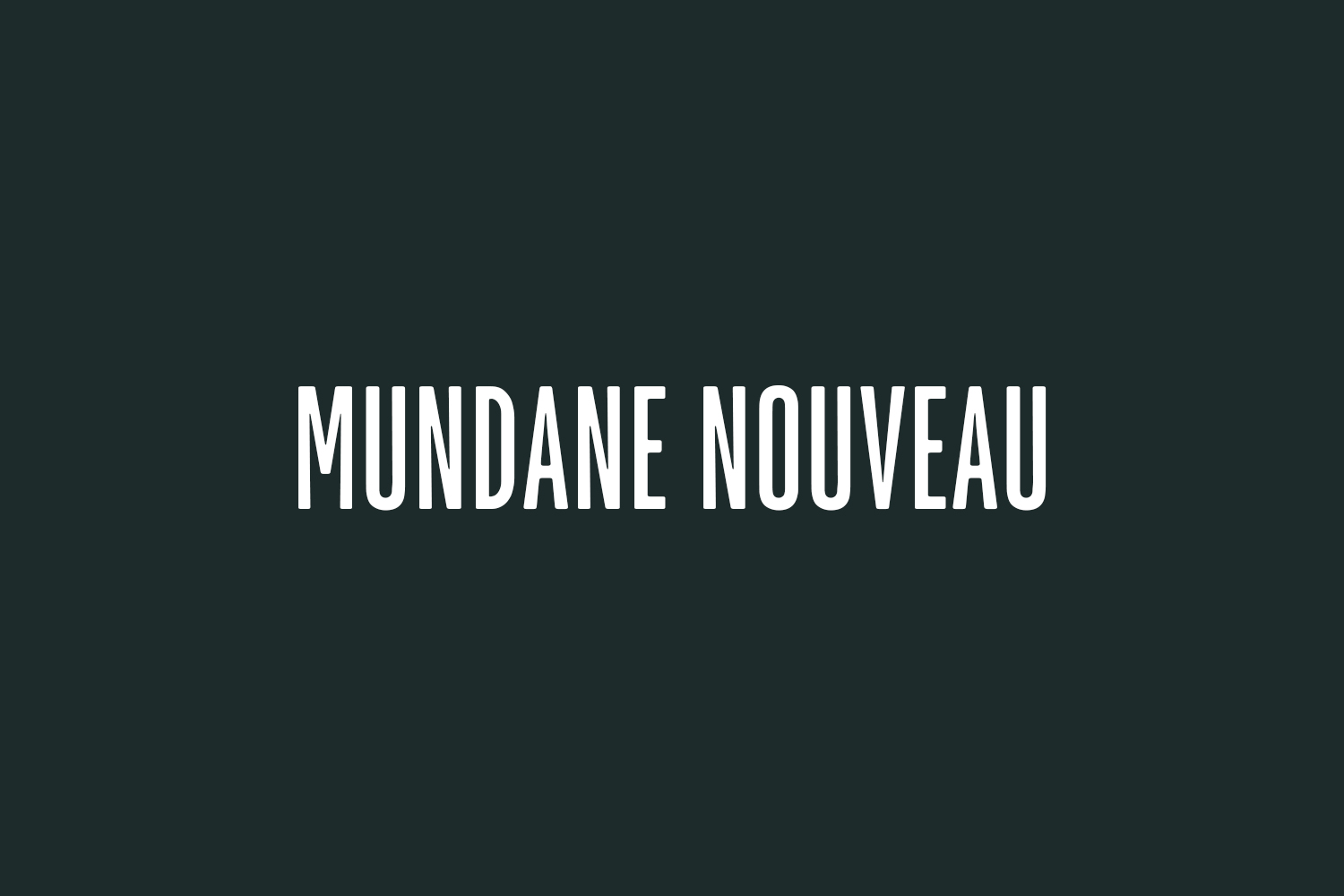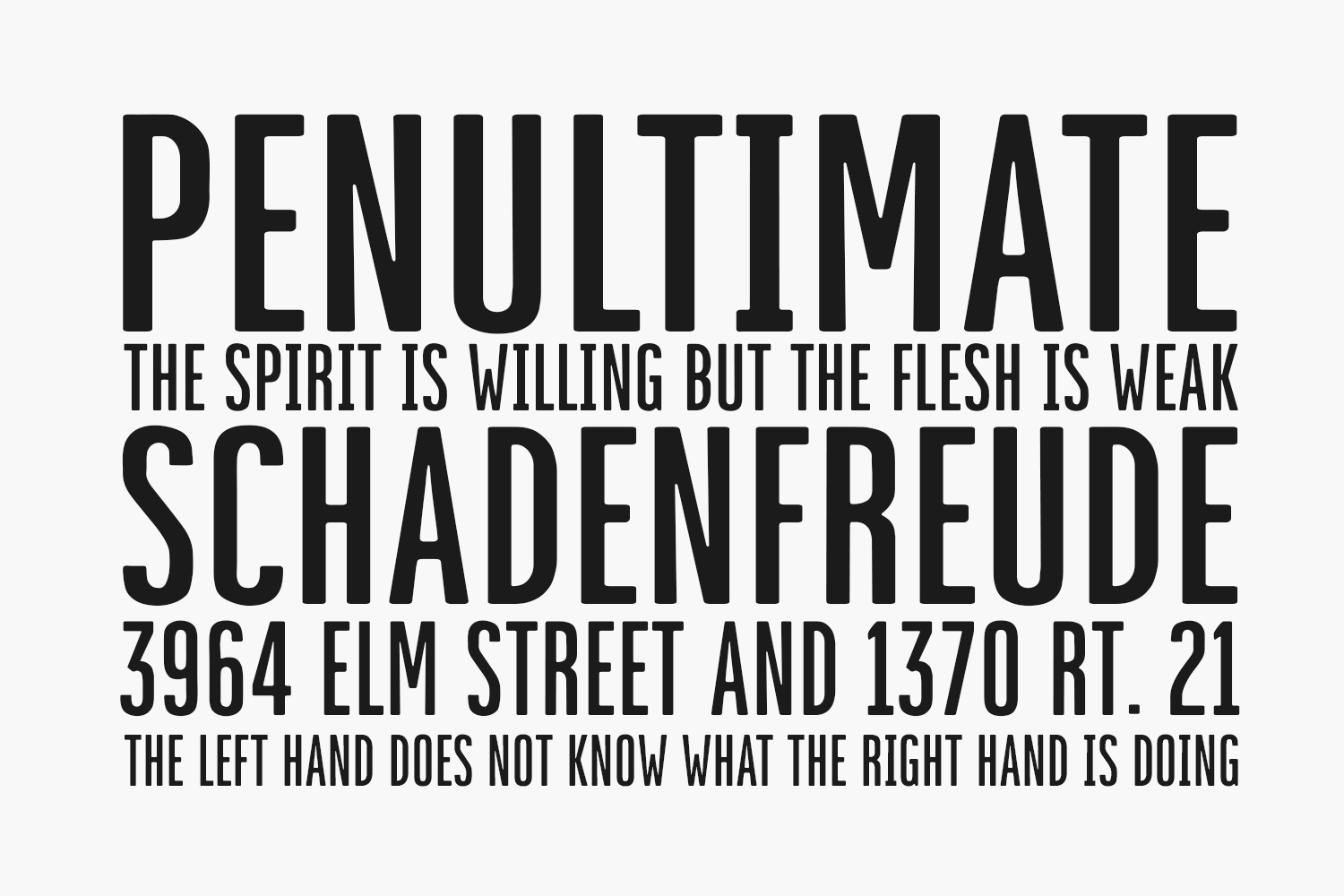
Mundane Nouveau Free Font is an organic typeface created for projects that need a bit of organic feeling without losing clarity. Mundane Nouveau Free Font was designed by HENRIavecunK and is free for personal use only.